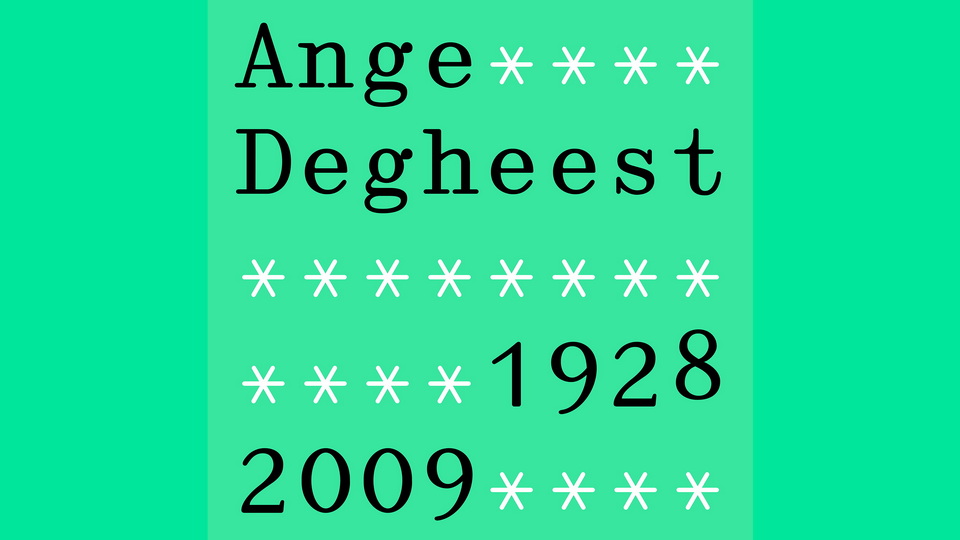
Download Director typeface, a monospaced serif font family in two weights, a revival of the design by Ange Degheest. Director is a typewriter font that offers an elegant character, marked by strong contrasts between full and hairlines, offset by serifs and rounded endings.